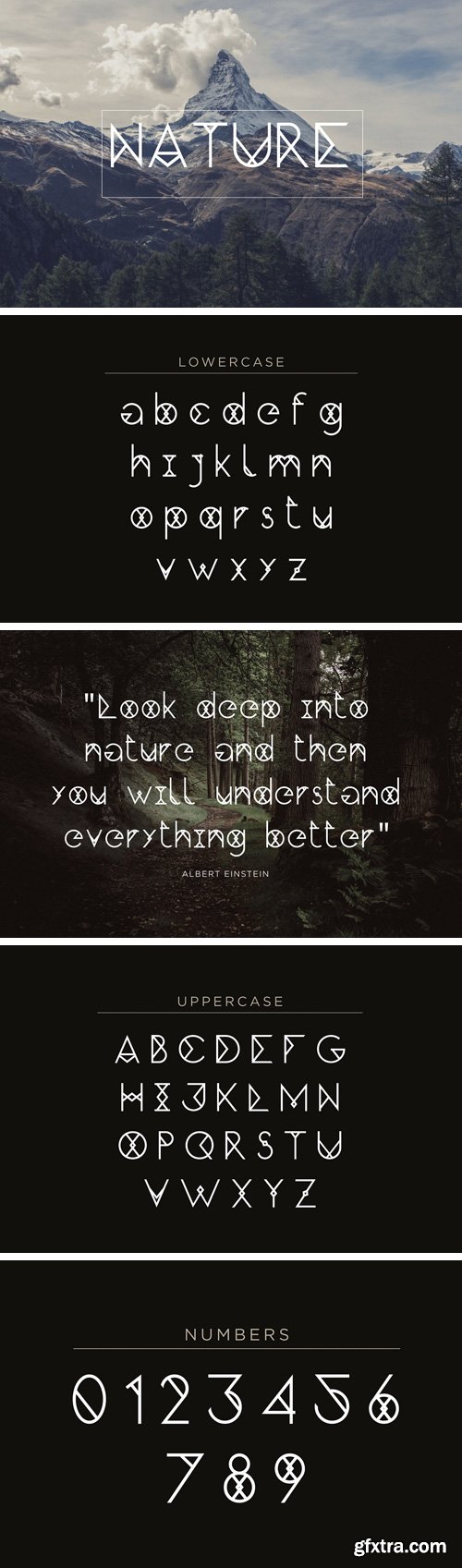
Nature Font
Nature is a creative geometric font. It contains uppercase, lowercase letters and numbers. This font suits for headlines, logos, branding and other unique arts.